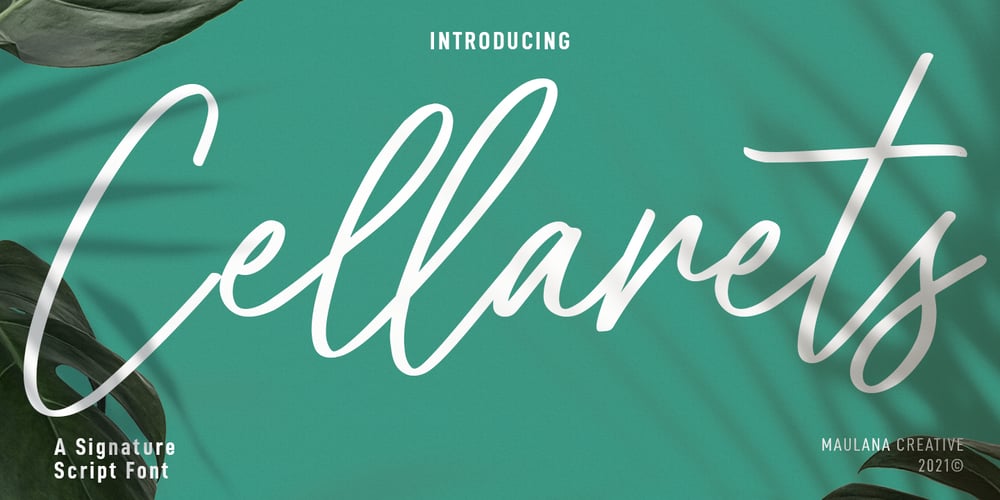
Cellarets Font Family was designed by Gilang Maulana and published by Maulana Creative. Cellarets contains 1 styles and family package options. Cellarets is a slanted signature script font. With clean regular stroke, fun character with a bit of ligatures. To give you an extra creative work. Cellarets font support multilingual more than 100+ language. This font is good for logo design, Social media, Movie Titles, Books Titles, a short text even a long text letter and good for your secondary text font with sans or serif. Make a stunning work with Cellarets font. Cheers, MaulanaCreative